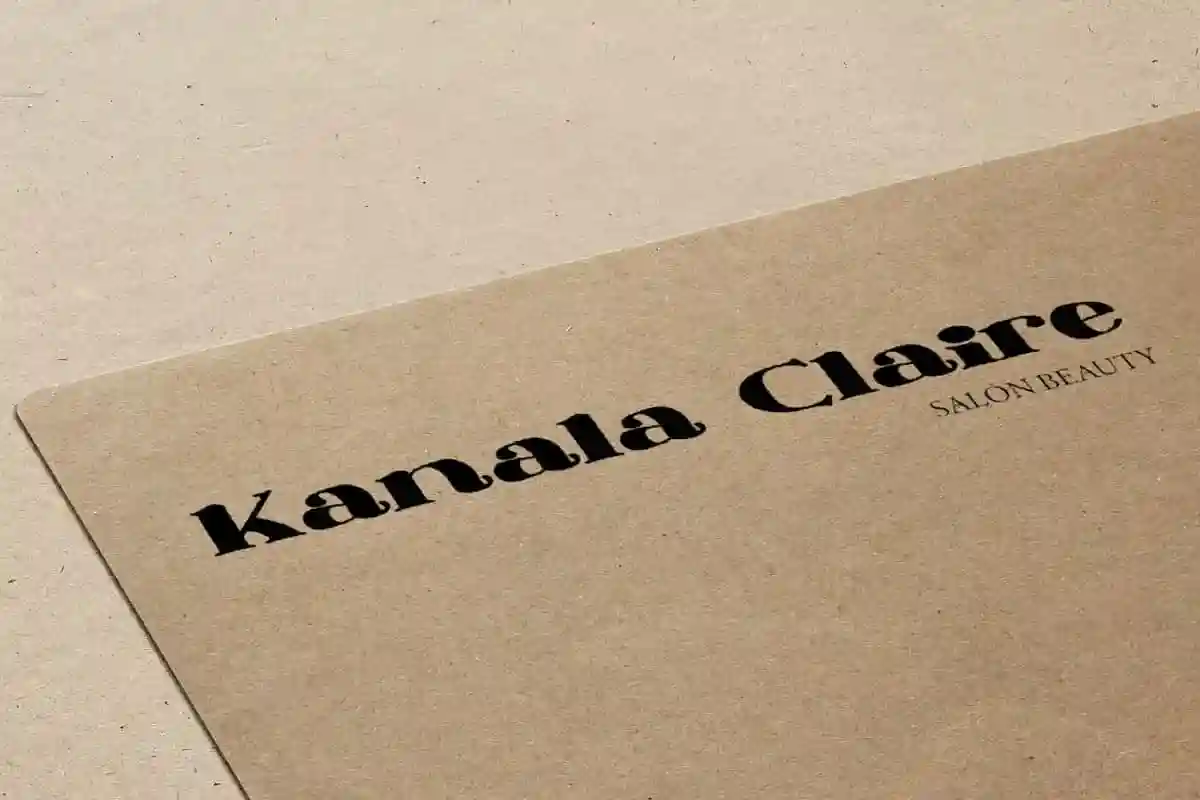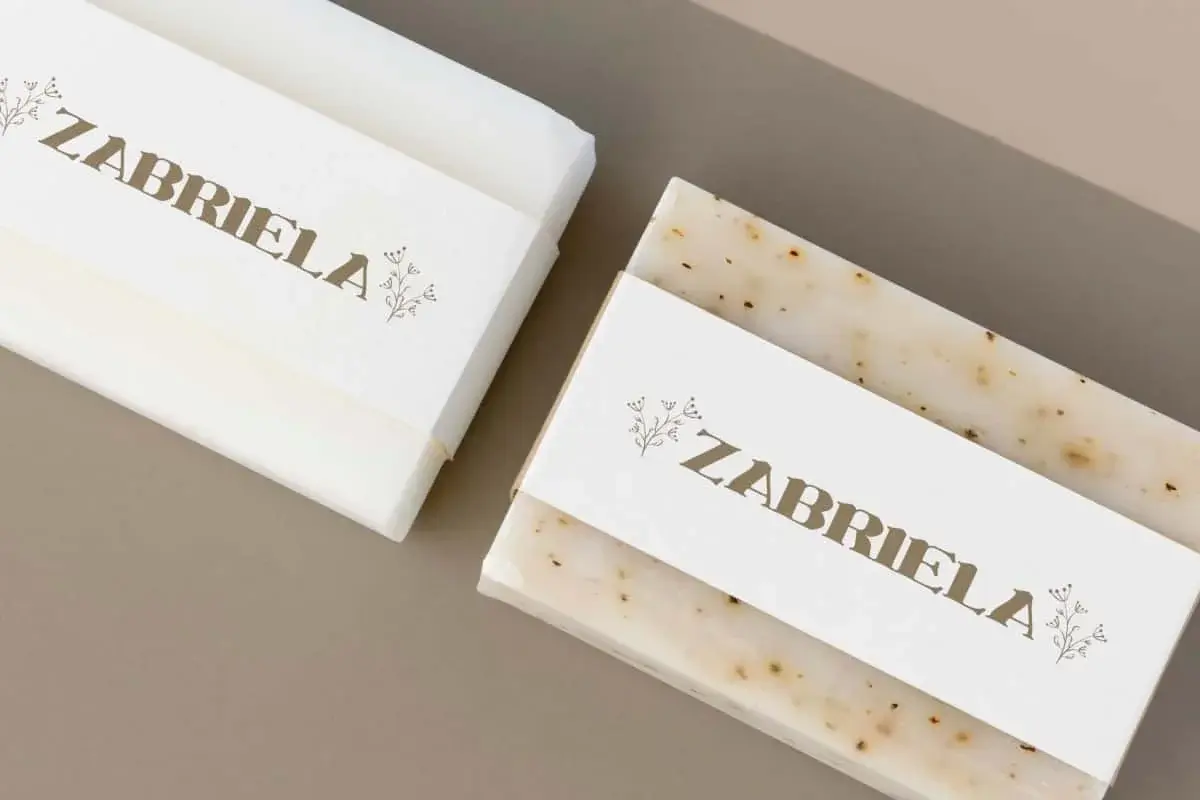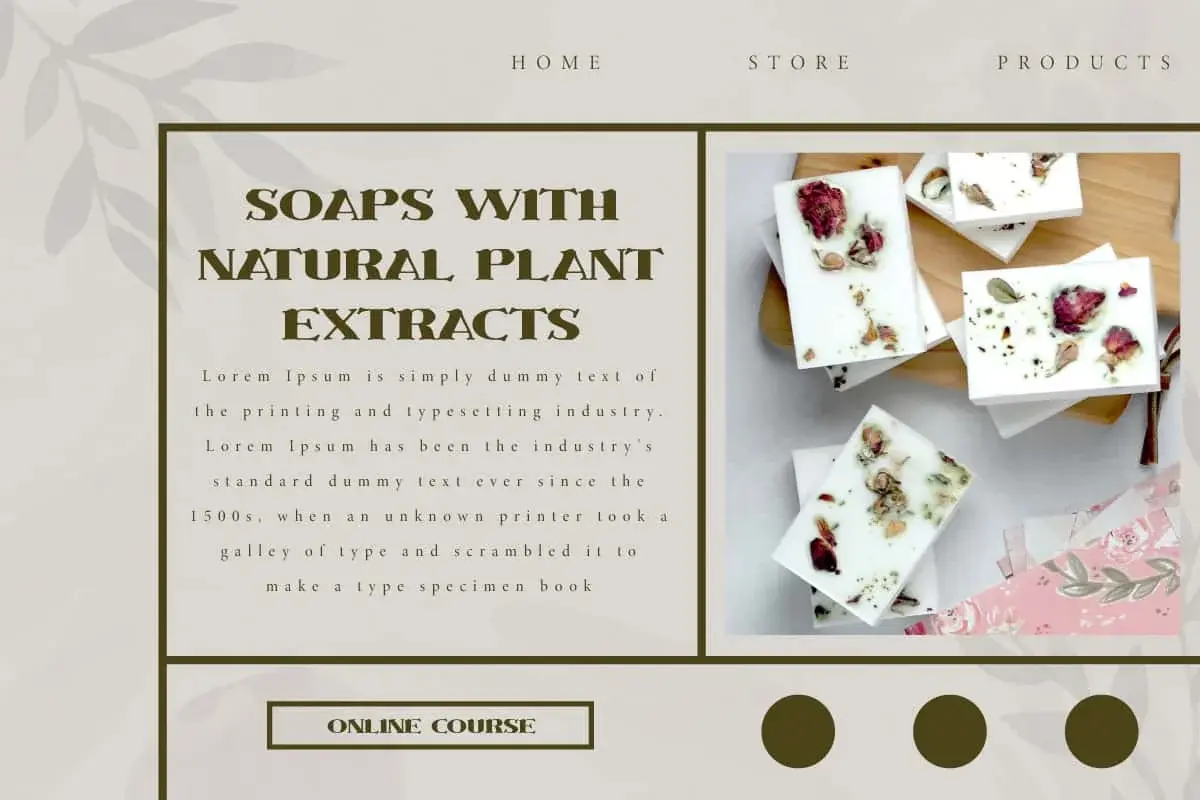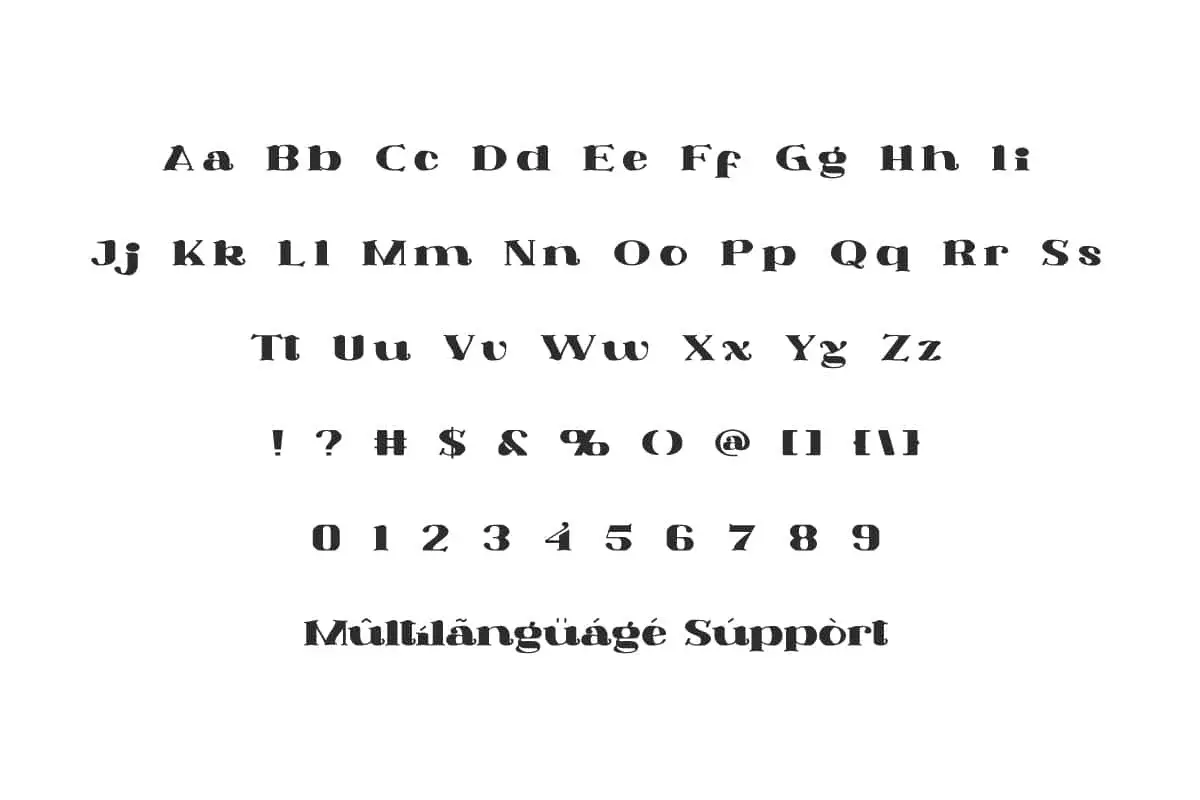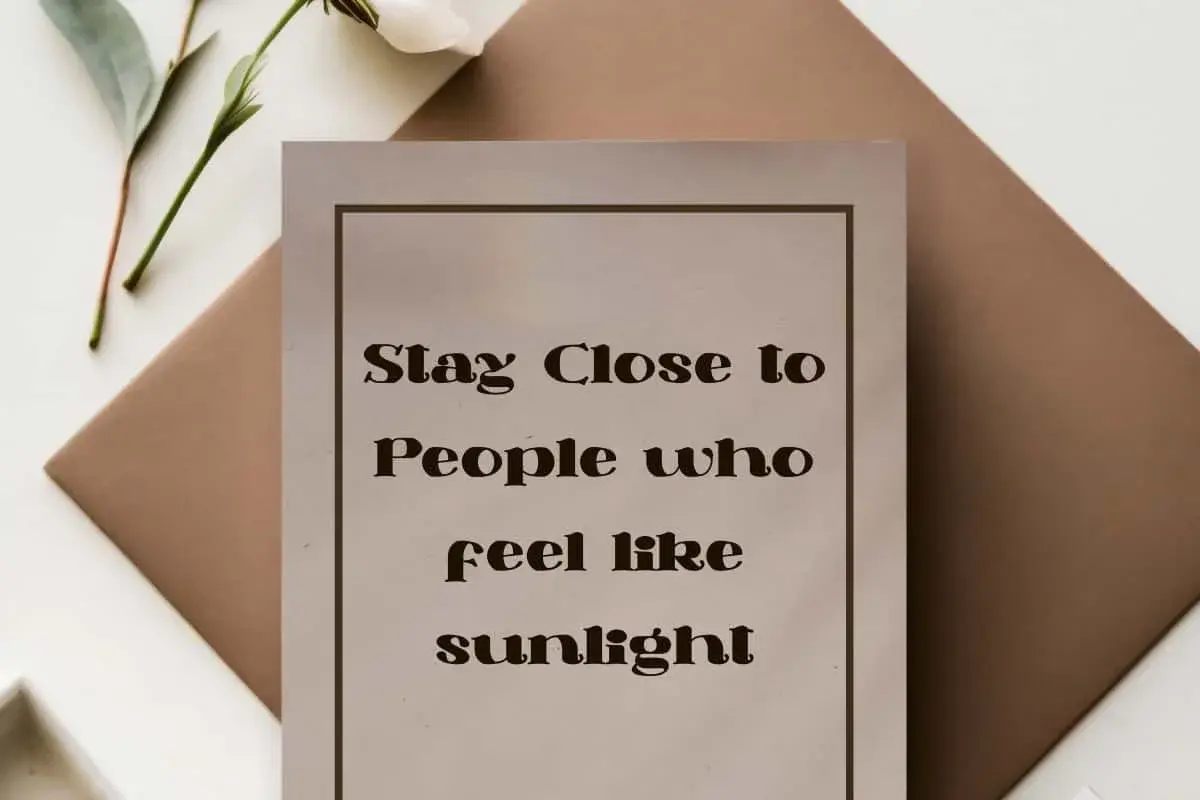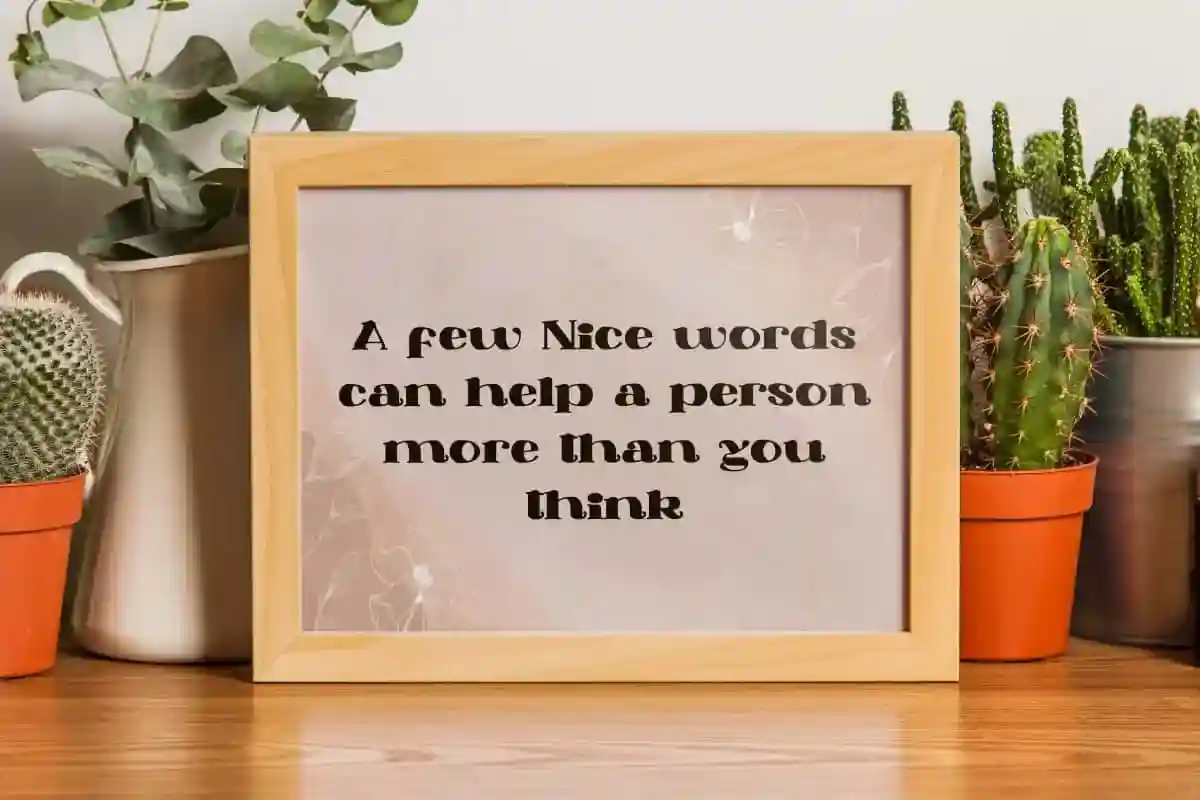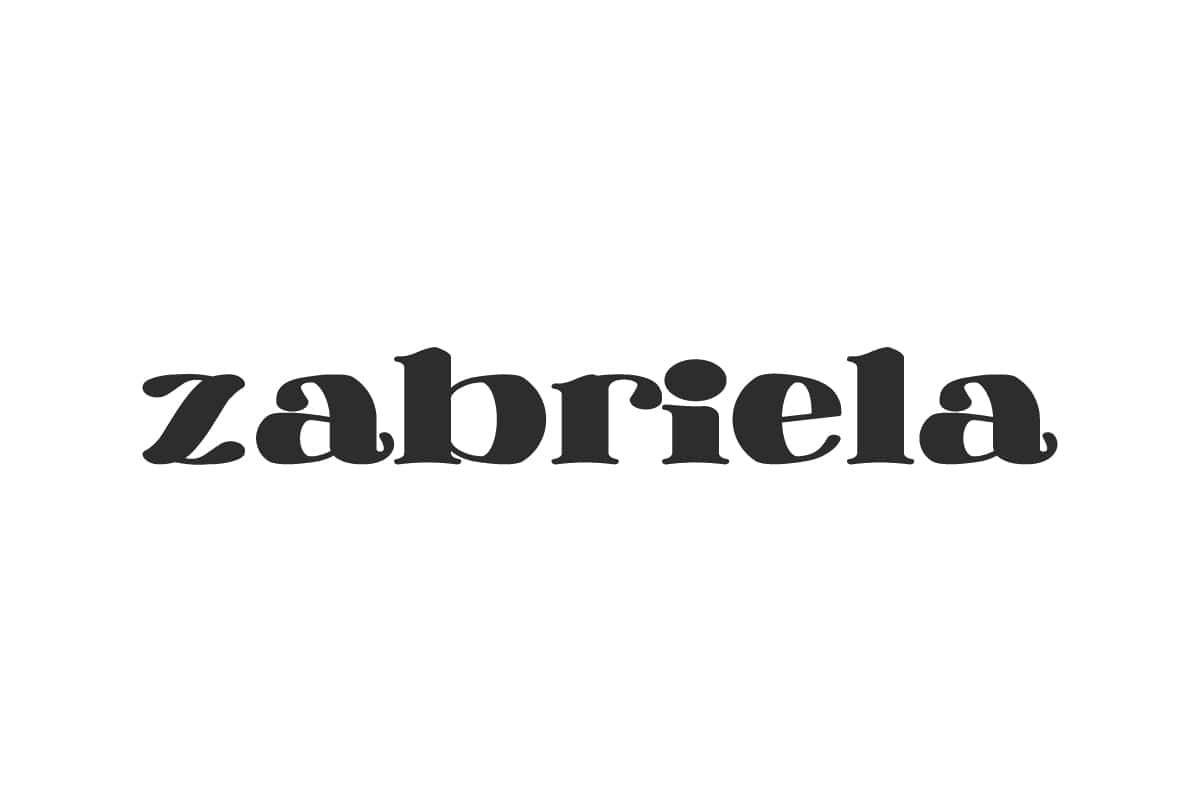
Zabriela Font is made to really eye-catching through the intensity and innovation of the letter proportions. Perfect for brands that need the timeless retro typography.
Zabriela Font is a retro serif display font with a professional touch. It has a concise font style with a bold and impressive look. This font is ideal for banner, blog, brochure, greeting card, heading, headlines, invitation, label, logos, mockup, poster, quotes, template, title, web design, and much more.
Zabriela Font contains a complete set of basic Uppercase and Lowercase characters, Numbers, Symbols and Punctuation. The font feels elegant and refined with its clean, minimalist letters featuring a slightly wide and full design that gives a deep vintage stylish feel. It is suitable for accessories and merchandise, beauty salon, cafes, handicraft, home furniture, graphic design, photography, real estate, restaurant, skincare, soap retail, and others.